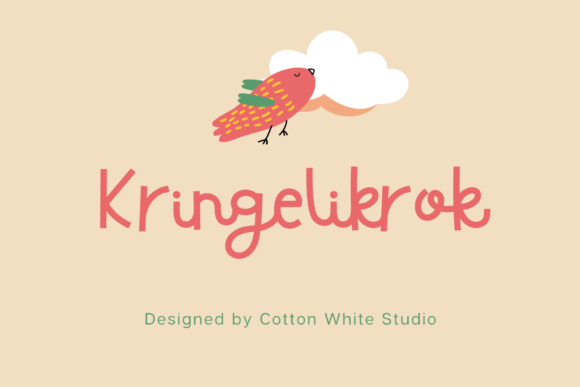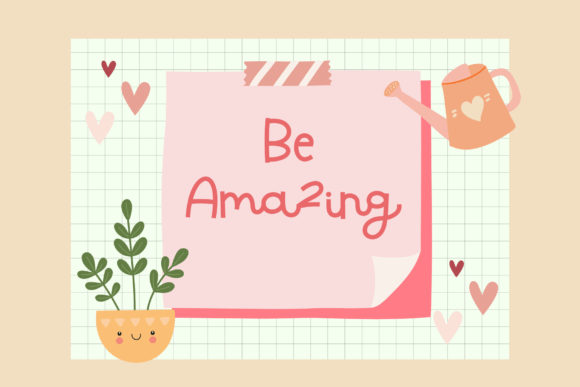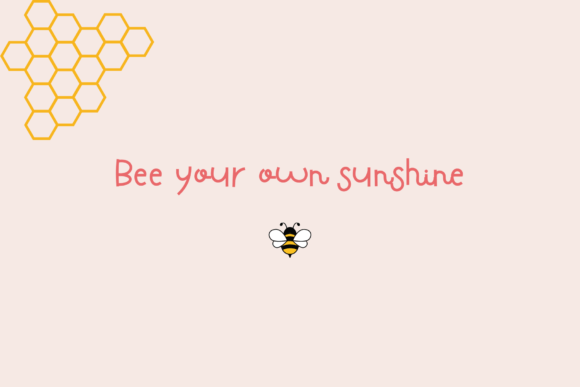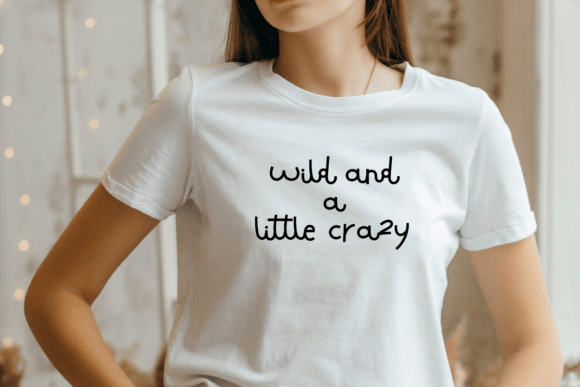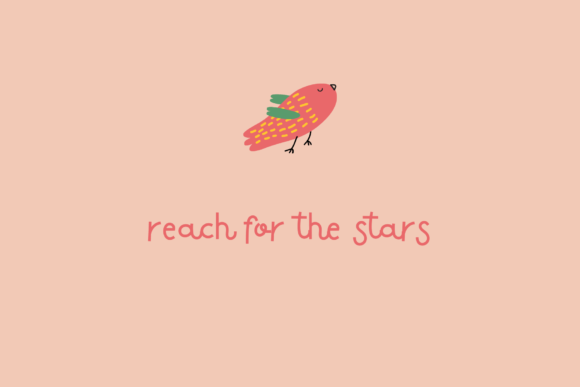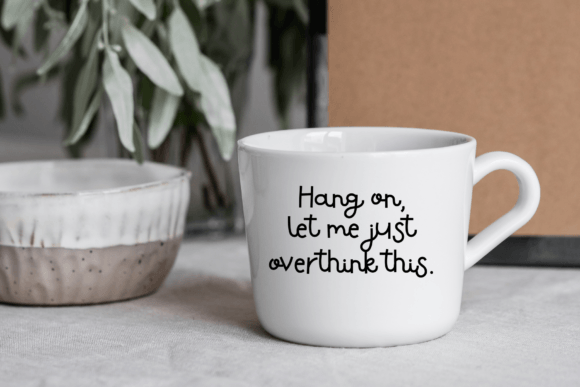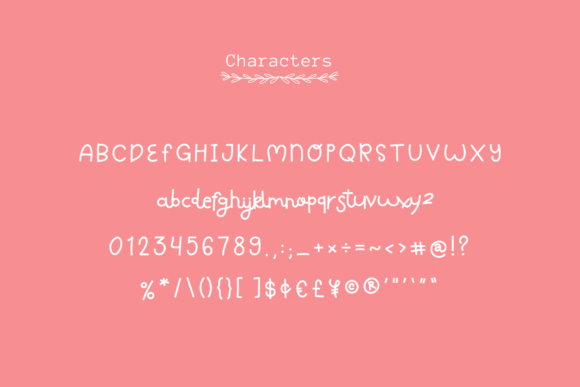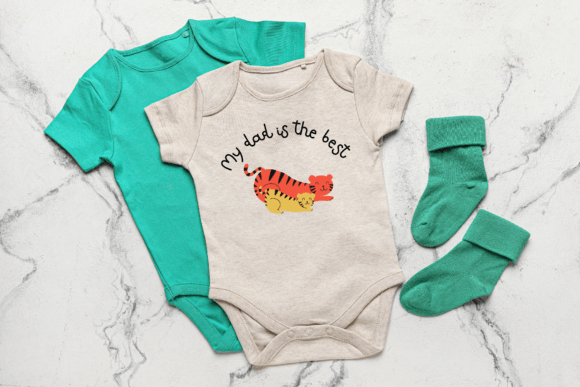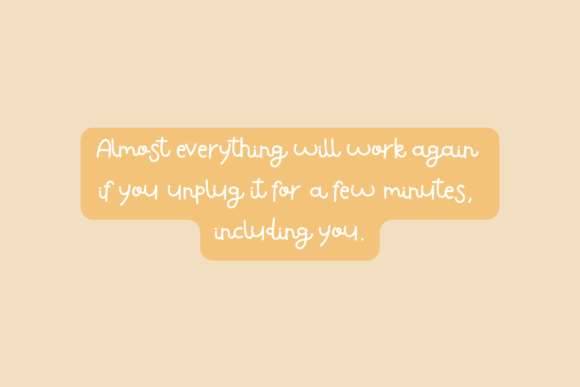
Kringelikrok Font
About Kringelikrok Font
Kringelikrok font brings sweetness and charm to your creative projects with its adorable and playful design. This cute script is crafted to add a touch of whimsy and lightheartedness, making it an ideal choice for designs that need a joyful and engaging feel. Whether you’re creating greeting cards, invitations, or social media graphics, Kringelikrok helps your work stand out with its unique personality.
Playful and Cute Style
The font features delightful curves and playful details that give it a fresh and lively look. These design elements make Kringelikrok perfect for projects that want to communicate fun and friendliness. Its approachable style makes any design feel welcoming and full of character.
Versatile for Various Projects
Kringelikrok font works well across a variety of design purposes. It shines on greeting cards and invitations, creating an intimate and heartfelt touch.
Bring Energy and Joy
One of the most appealing aspects of Kringelikrok is how it injects energy into your designs. The playful strokes and sweet styling invite viewers to smile and connect emotionally with the message, making it perfect for creative projects that aim to be memorable and friendly.
Key Features
• Adorable, cute script font
• Playful curves and charming details
• Ideal for greeting cards, invitations, and branding
• Adds energy and warmth to designs
Why Choose Kringelikrok?
If you want your designs to convey joy and charm, Kringelikrok is a perfect fit. It offers a balance of sweetness and style, making it versatile enough for many creative needs.
In conclusion, Kringelikrok font is a delightful and cute script that enhances your designs with playful energy and warmth. It’s a fantastic choice for anyone seeking to create engaging and memorable projects with a sweet, whimsical touch.